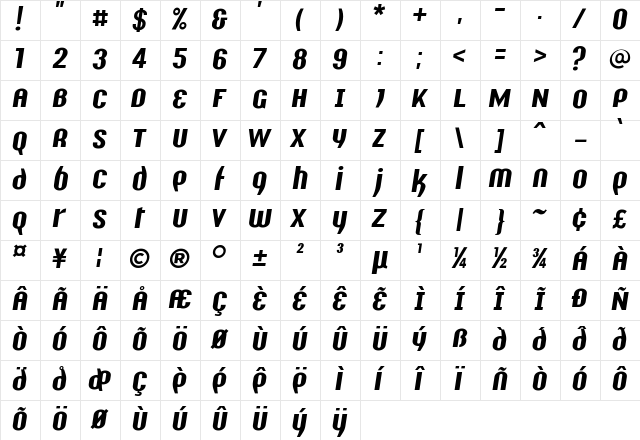
Y2K Analog Legacy Italic
Design Context for Y2K Analog Legacy Typeface
Y2K Analog Legacy is a composed and adaptable typeface that performs quietly and consistently across a wide range of design contexts. The dynamic lean of this cut emphasises speed and emphasis in any layout.
Pro Tip: Try Y2K Analog Legacy for annotation and caption copy alongside an upright companion — the contrast in angle creates a dynamic but ordered typographic system.